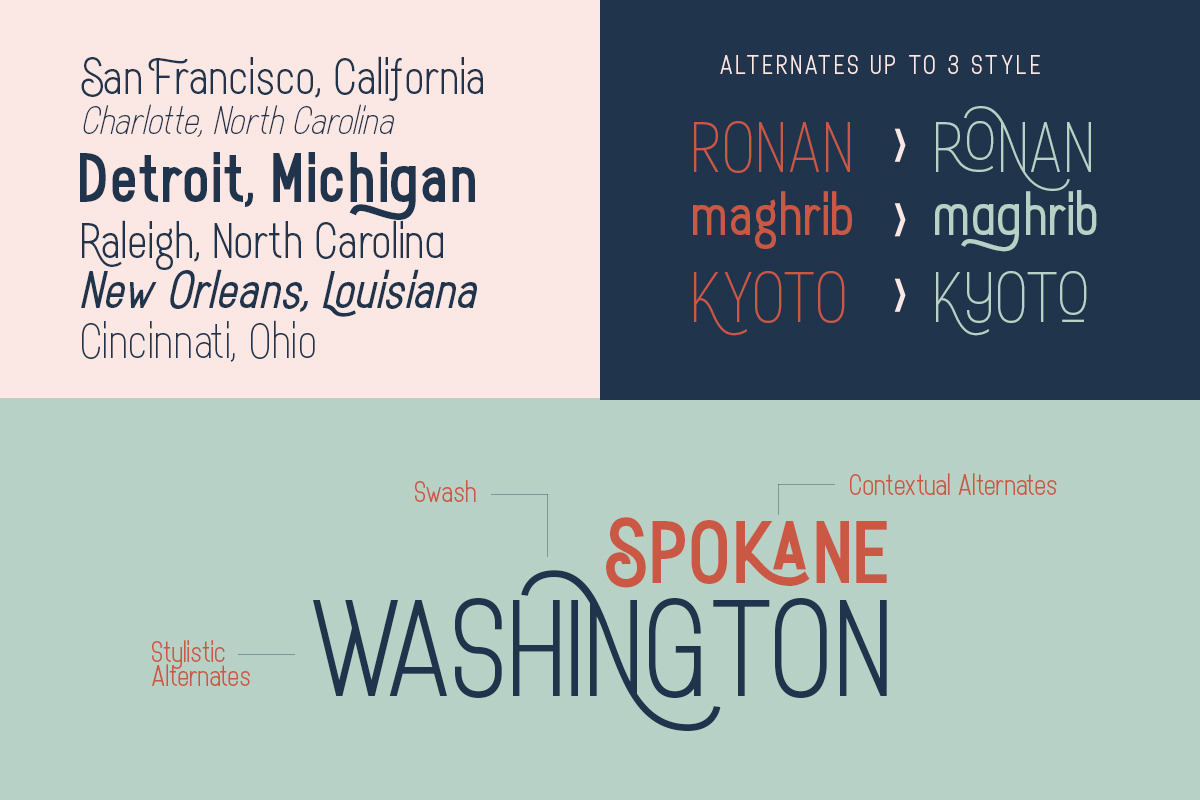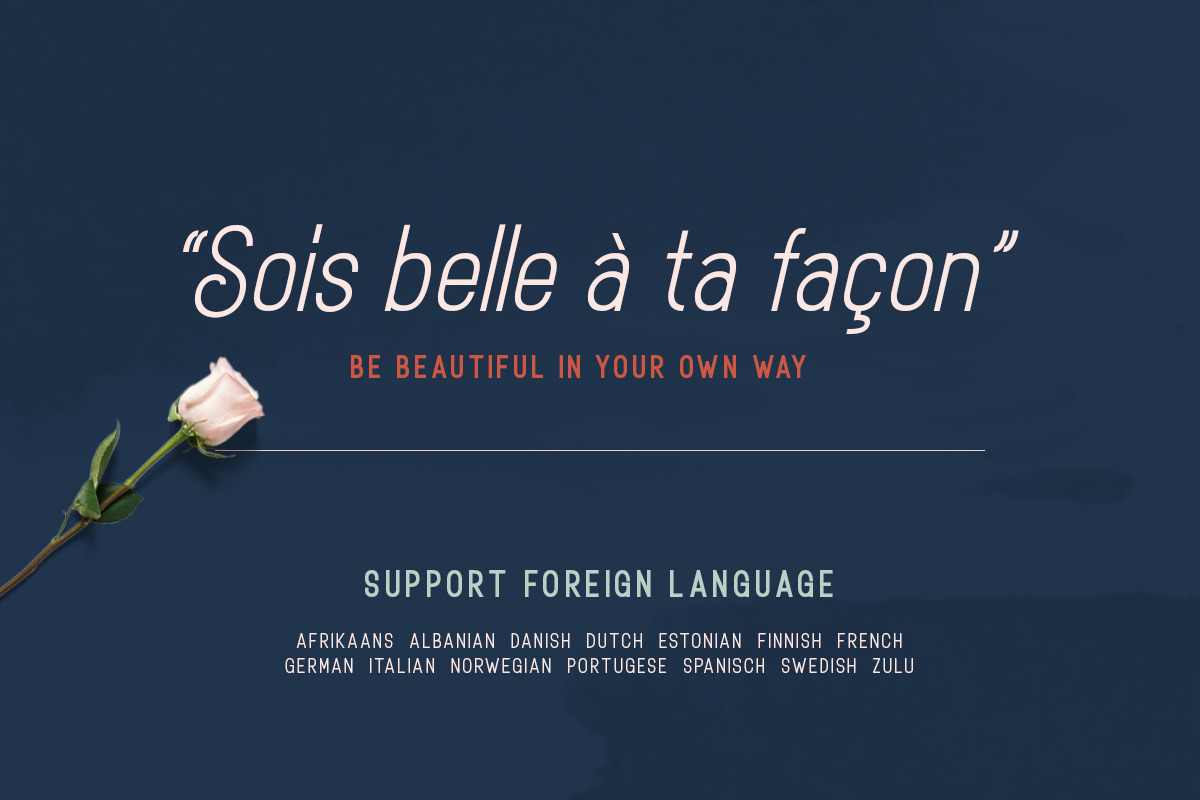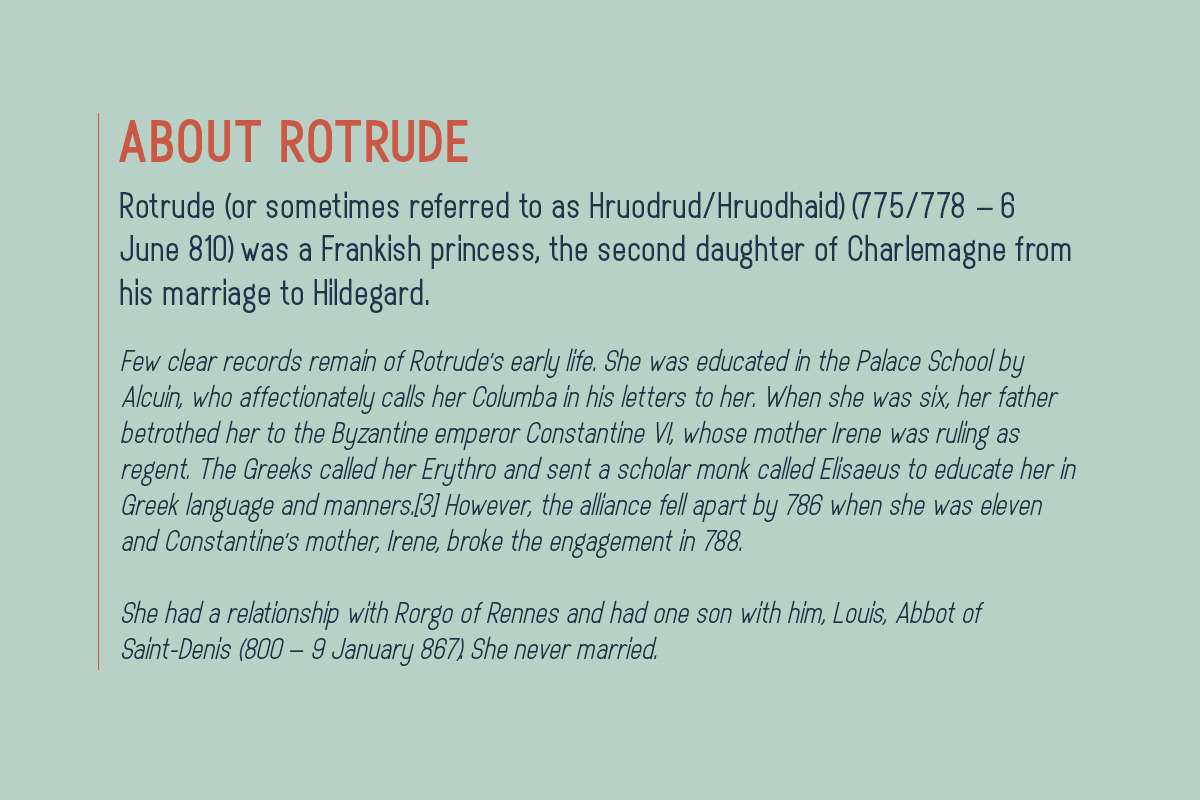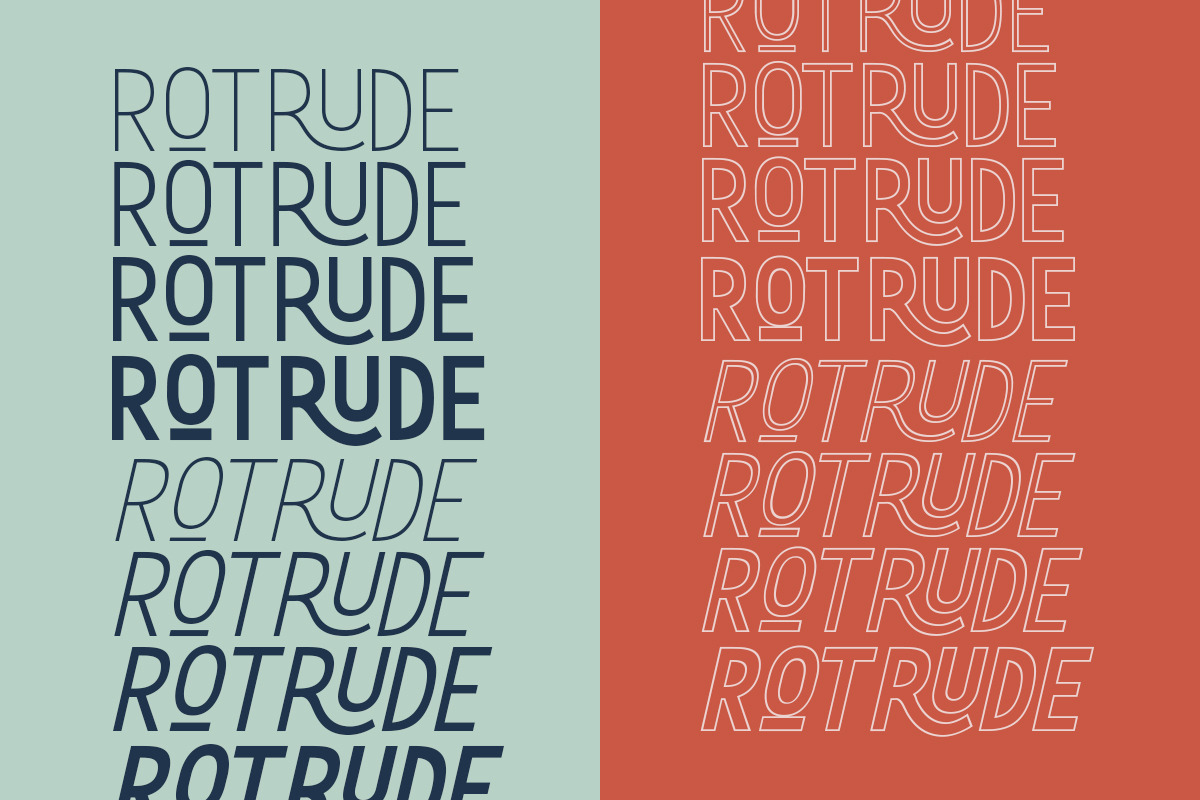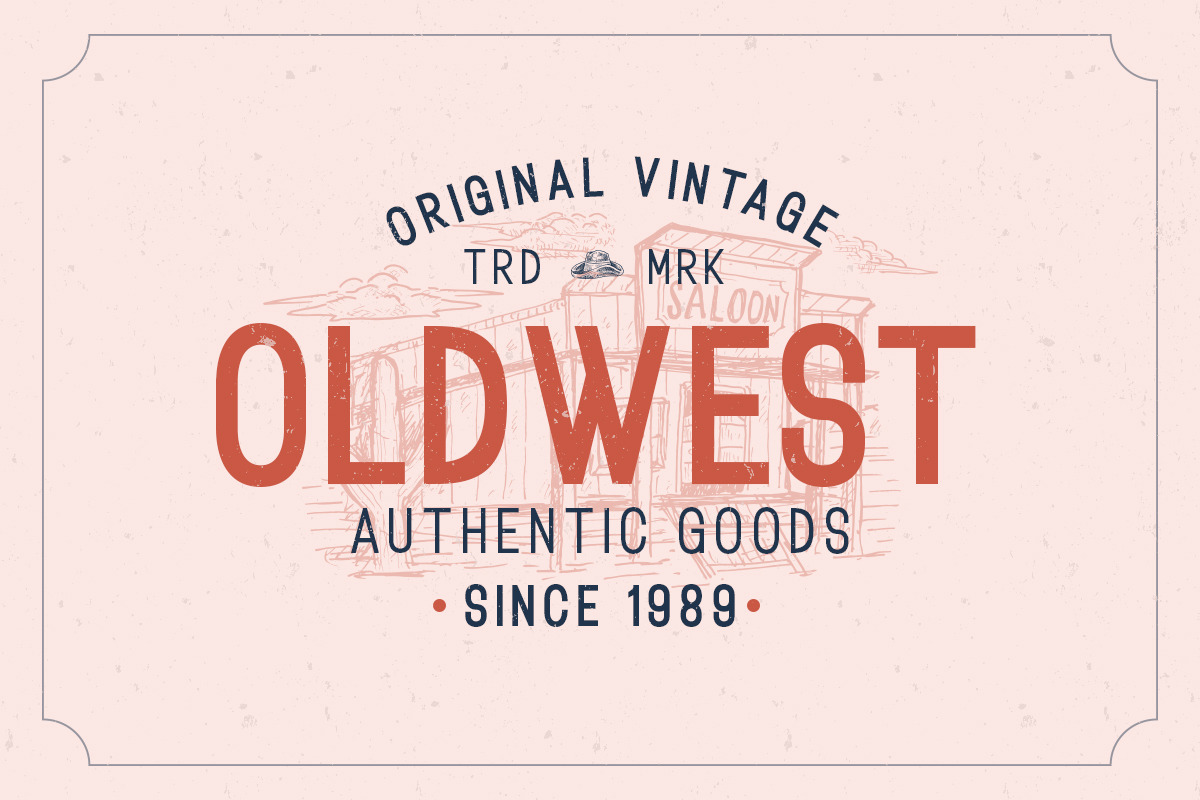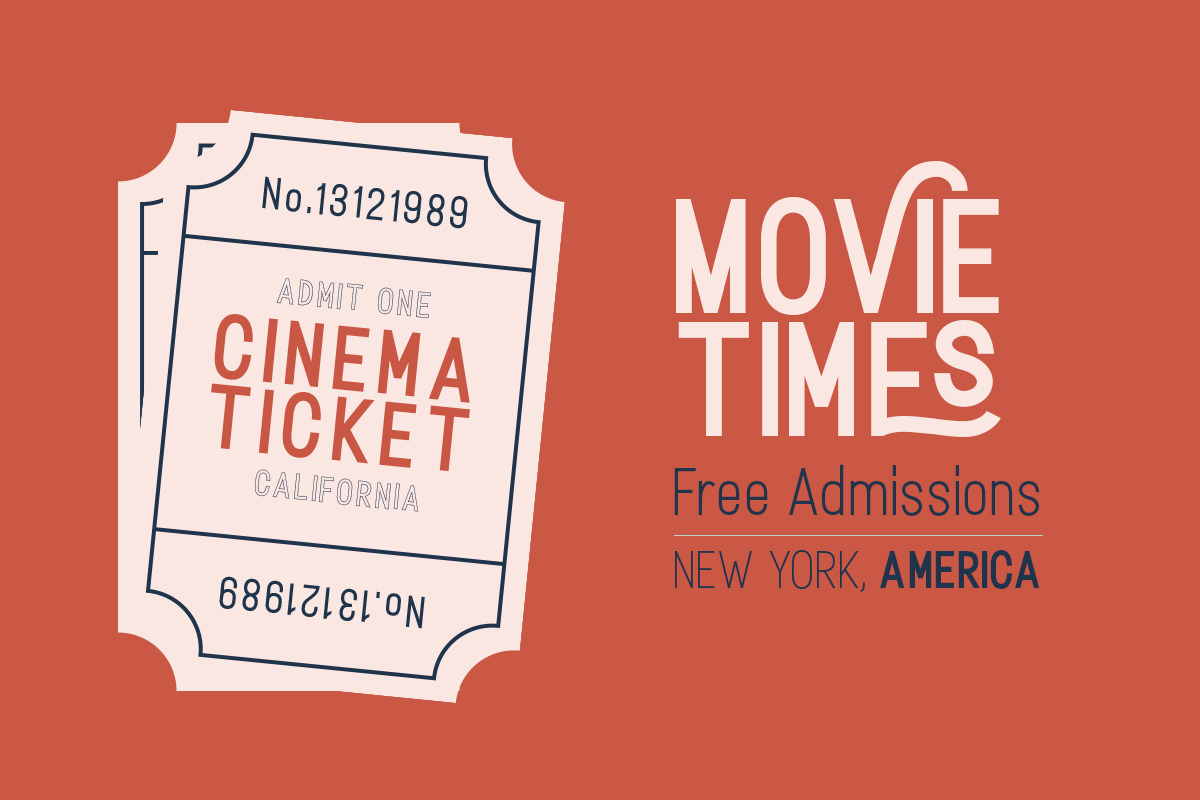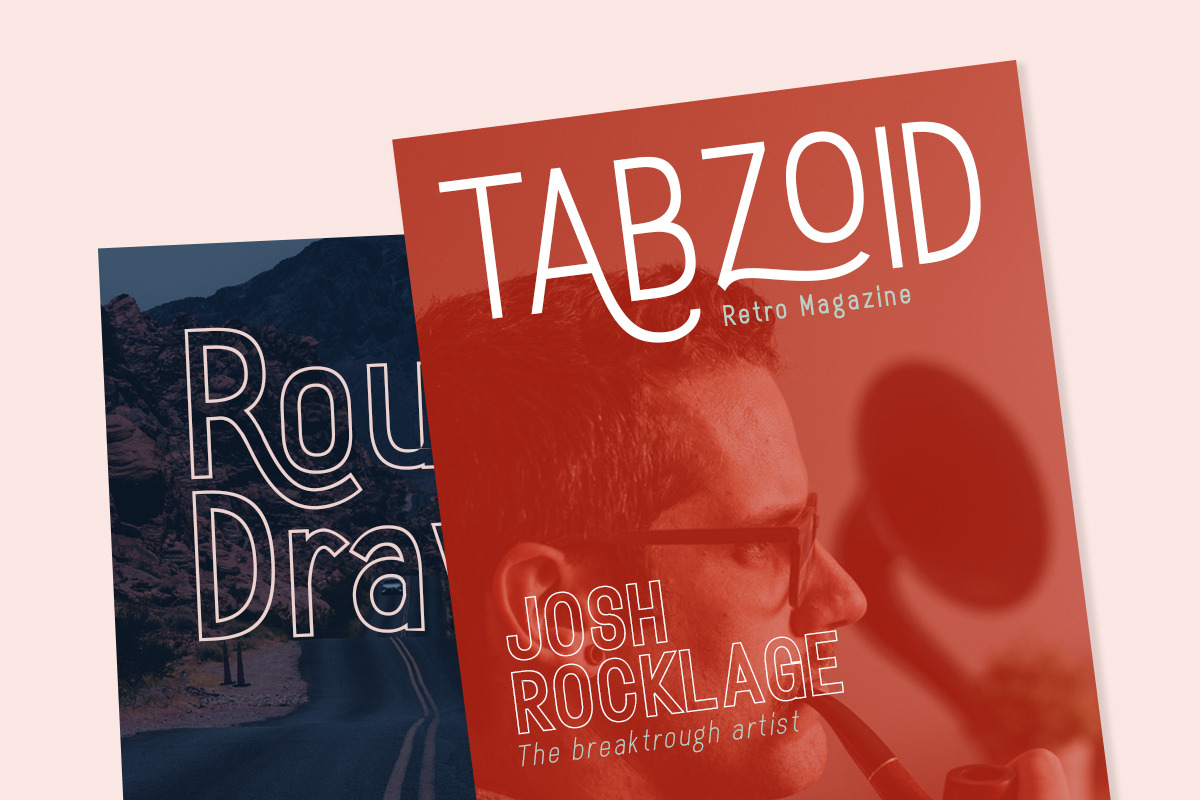
Introducing, my new sans font, Rotrude Sans Family!
Rotrude Sans is a casual and modern sans. The special things is this font comes with alternates in each alphabets! Every alphabet have alternates up to 3 kinds! This font fits in any project. You can use it for a tittle, logo, quotes, or become a pairing in any font. This font also support multi language! And don't worry, this font also have LOWERCASE!
Each font comes with Outline Version
Support Multilingual up to 14 languages